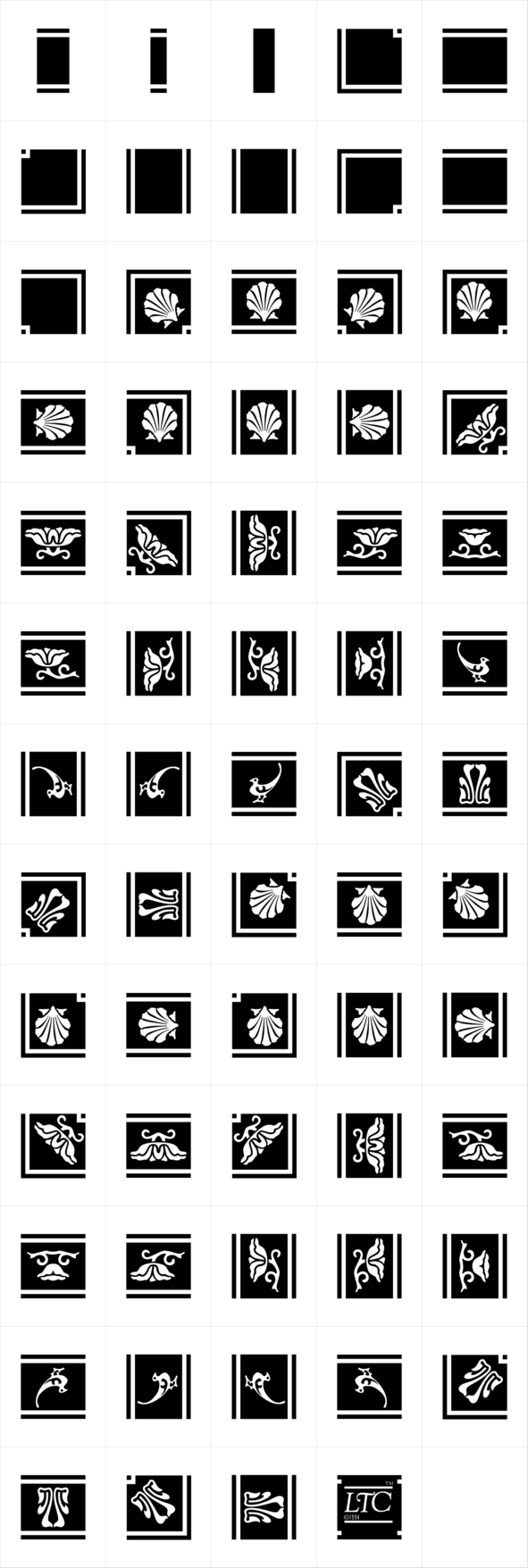
LTC Water Garden Ornaments
Designed By Gerald Giampa, Watergarden Ornaments is a suite of 11 fonts designed to overlap and layer as connected borders. Single ornament fonts are offered in styles A & D only. A keychart showing key positions and